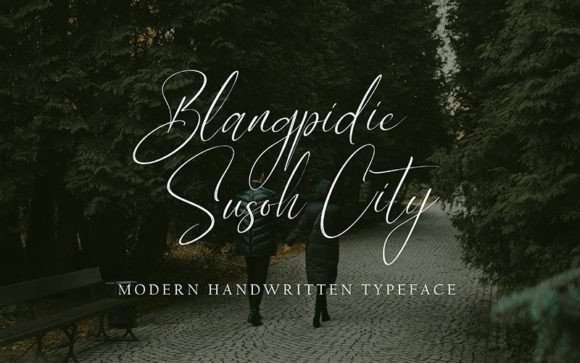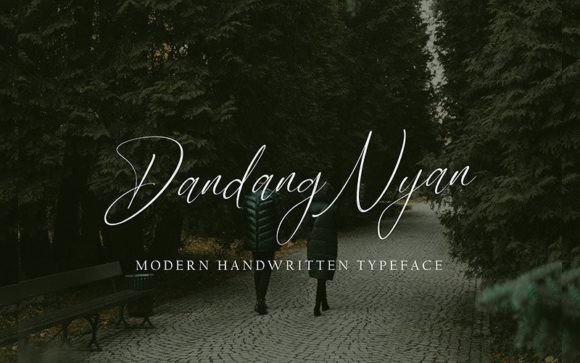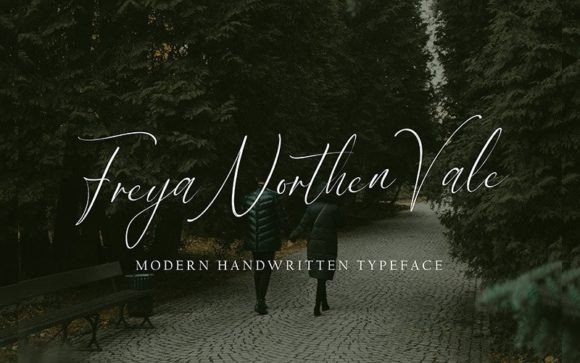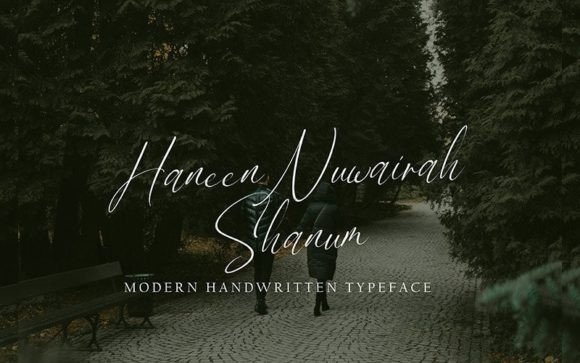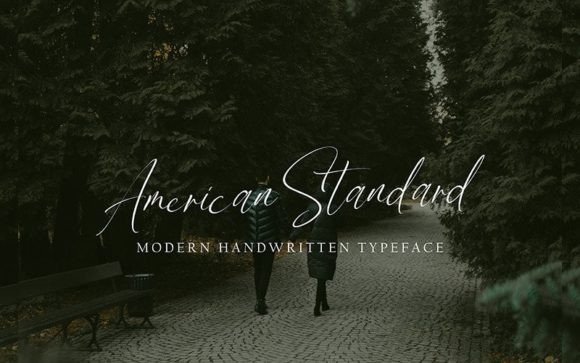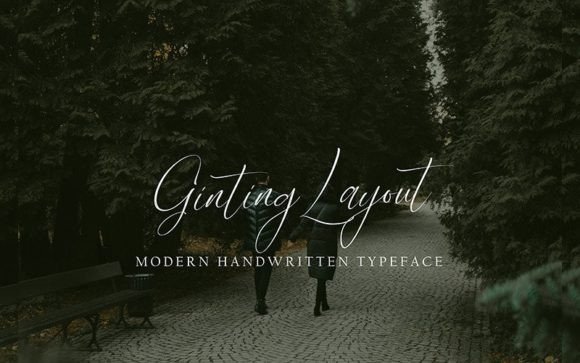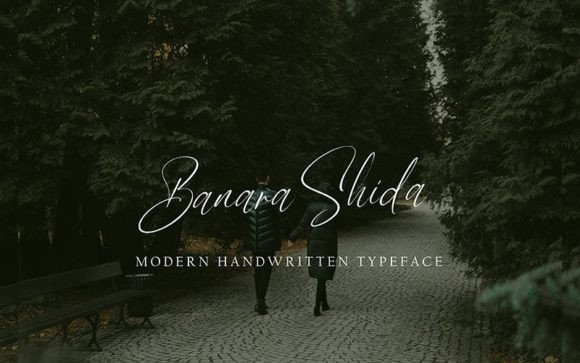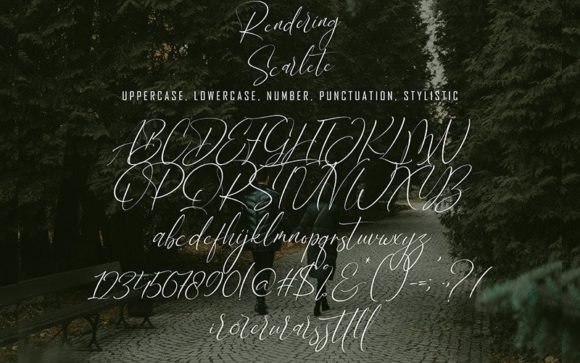
Rendering Scarlete Font
About Rendering Scarlete Font
Rendering Scarlete presents itself as a stunning typographic font, perfect for an array of creative projects. With its aesthetic appeal, it is well-suited for diverse applications such as logos, branding, invitations, stationery, wedding designs, social media posts, advertisements, product packaging, product designs, labels, photography, watermarks, special events, and any project requiring a touch of elegant handwriting.
In logos and branding, Rendering Scarlete contributes a touch of sophistication. The font’s typographic elegance enhances brand identity, creating a memorable and stylish visual representation. Its versatility allows it to adapt to various industries and design aesthetics, making it a valuable asset for creating a strong and distinctive brand presence.
For invitations and stationery, Rendering Scarlete adds a sense of refinement and personal touch. The typographic beauty of the font elevates these materials, making them visually appealing and well-suited for various occasions, from weddings to formal events.
In the realm of social media, advertisements, and product packaging, Rendering Scarlete becomes a powerful tool for creating eye-catching visuals. The font’s tasteful handwriting imparts a sense of artistry, making it an excellent choice for promoting products, services, or special offers in a way that captures attention and resonates with the target audience.
Product designs, labels, and photography projects benefit from the unique charm of Rendering Scarlete. The font’s typographic allure complements visual elements, adding an extra layer of sophistication to the overall design.
For special events, watermarks, and any project requiring a handwriting taste, Rendering Scarlete shines as a versatile and stylish choice. Its elegant script creates an atmosphere of class and individuality, making it suitable for a wide range of creative endeavors.
In summary, Rendering Scarlete is more than a font; it’s a design asset that brings a refined handwriting taste to diverse projects. Its versatility and typographic beauty make it a go-to choice for designers seeking a font that effortlessly enhances the visual appeal of their work across various applications.